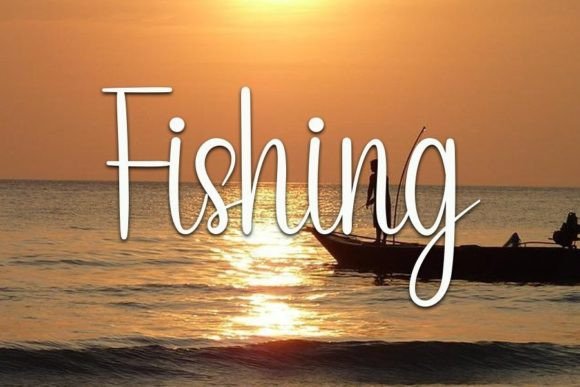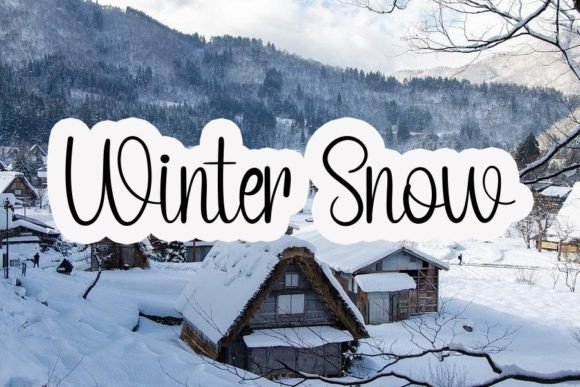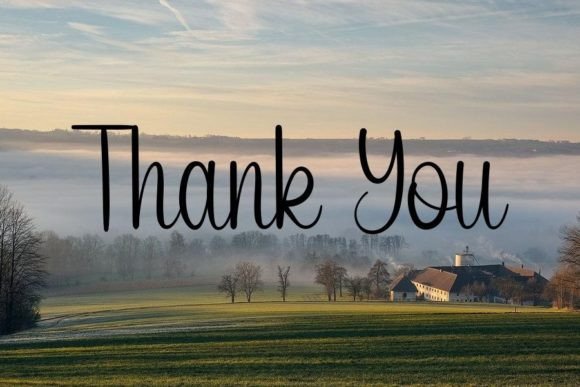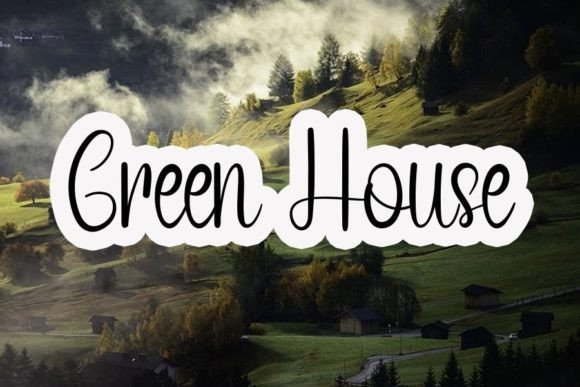
About Panda Font
“Panda” is a simple and adaptable script font that brings a cute and charming vibe to your creative projects. This font is designed to be versatile, making it a perfect choice for love letters, wedding invitations, or any favorite design ideas you have in mind.
The simplicity and adaptability of “Panda” make it a valuable asset for a variety of contexts. Imagine using it on love letters, where its cute-looking script adds a touch of warmth and charm to your heartfelt messages. Picture it on wedding invitations, enhancing the overall romantic atmosphere of the celebration.
As a script font, “Panda” offers a friendly and approachable aesthetic. Its versatility allows it to seamlessly integrate into different design applications, making it suitable for a wide range of creative endeavors.
Whether you’re working on digital graphics, print materials, or any other design project, “Panda” invites you to experiment with its cute and adaptable style. It becomes a charming addition to your creative toolkit, ensuring that your designs stand out with a touch of cuteness and versatility.
As you add “Panda” to your love letters, wedding invitations, or favorite design ideas, you’ll be astounded by the delightful outcome. This font becomes a delightful companion, enhancing your creations with a cute and charming script that adds a special touch to your messages and designs.